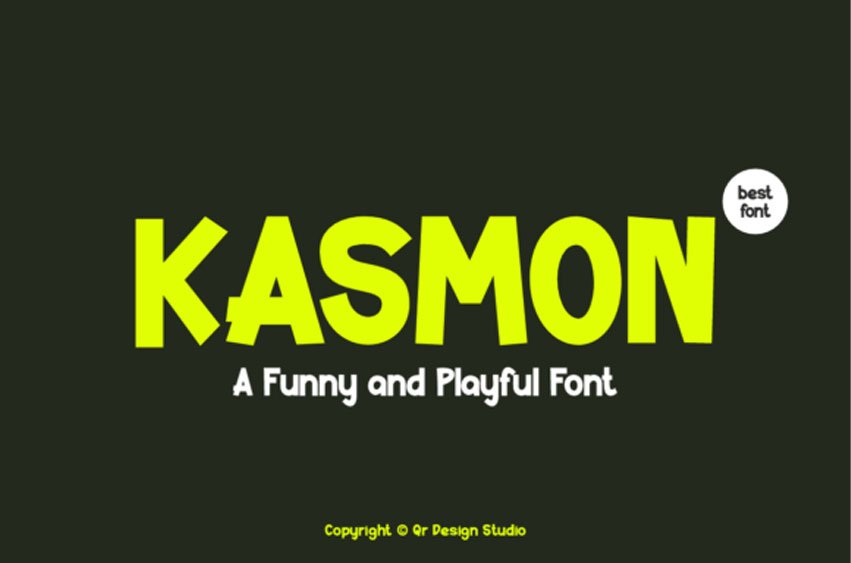
Kasmon Font
Kasmon Font is a bold, funny, and playful display font that radiates energy and character through its quirky proportions and lively curves.
Its chunky, exaggerated letterforms strike a balance between geometric stability and cartoon-like fun, making it instantly eye-catching and full of personality.
Designed to bring joy and humor into projects, it works perfectly for children’s books, playful branding, posters, packaging, or any creative work that aims to feel approachable and vibrant. Its distinctive character lies in the way each letter carries a unique, slightly offbeat flair, ensuring designs feel both dynamic and memorable while remaining legible and versatile.